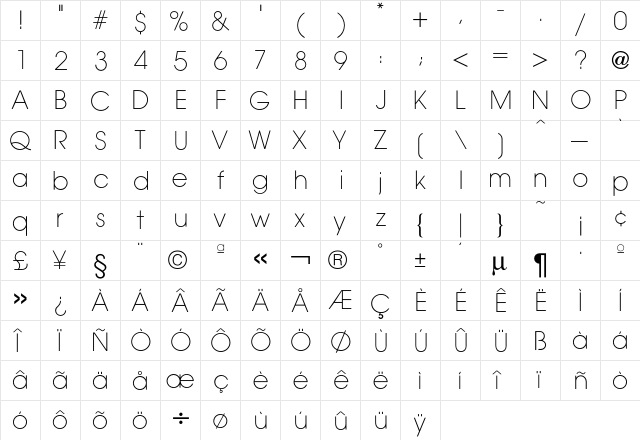
Avant GardeXLight Font Preview
Avant GardeXLight
Design Context for Avant Typeface
Avant offers clean, dependable letterforms without strong stylistic allegiance, making it a practical choice for designers who need flexibility. Its slender proportions lend an understated elegance to any composition.